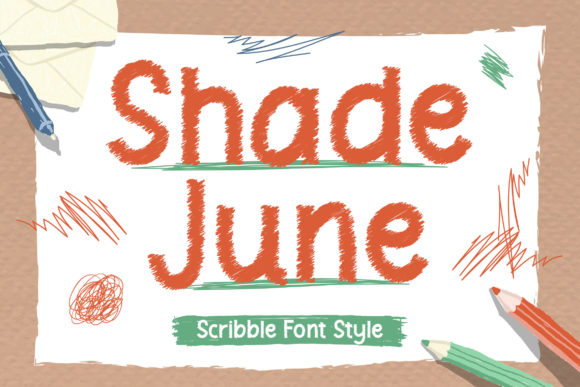
**Shade June: The Font That Will Make Your Designs Pop!**
In the realm of fonts, Shade June stands out as a unique and captivating creation, a symphony of strokes that will transform your designs into masterpieces. Step into the world of Shade June, where creativity knows no bounds and expression flows freely.
Picture this: a vibrant poster that demands attention, a captivating flyer that draws the eye, or a stunning print that leaves a lasting impression. Shade June is the font that will elevate your designs to new heights, turning your vision into a reality. Its bold strokes and playful curves create a sense of movement and energy, drawing the viewer in and captivating their imagination.
With Shade June, you're not just downloading a font; you're embarking on a creative journey filled with endless possibilities. Whether you're a seasoned designer or just starting out, Shade June will empower you to express yourself in a way that's both unique and unforgettable.
So, what sets Shade June apart from the crowd? It's the perfect blend of sophistication and playfulness, a font that's as versatile as it is eye-catching. Use it to create stunning headlines that command attention, eye-catching logos that leave a lasting impression, or captivating social media posts that engage your audience.
But don't just take our word for it. Dive into the world of Shade June and experience the transformative power of this extraordinary font. Unleash your creativity and let your designs soar with Shade June, the font that will make your creations shine brighter than ever before.
**Key Features:**
- **Bold and Playful Strokes:** Shade June's signature style is all about bold strokes and playful curves, creating a sense of movement and energy that will captivate your audience.
- **Versatile and Expressive:** Whether you're creating posters, flyers, logos, or social media posts, Shade June's versatility allows you to express yourself in a way that's both unique and impactful.
- **Endless Creative Possibilities:** With Shade June, your creativity has no limits. Experiment with different sizes, colors, and effects to create designs that are as unique as your imagination.
**Benefits:**
- **Captivating Designs:** Create designs that demand attention and leave a lasting impression with Shade June's bold and playful strokes.
- **Enhanced Expression:** Express yourself in a way that's both unique and impactful with Shade June's versatile and expressive style.
- **Unlimited Creativity:** Unleash your creativity and explore endless possibilities with Shade June, the font that empowers you to create designs that truly shine.